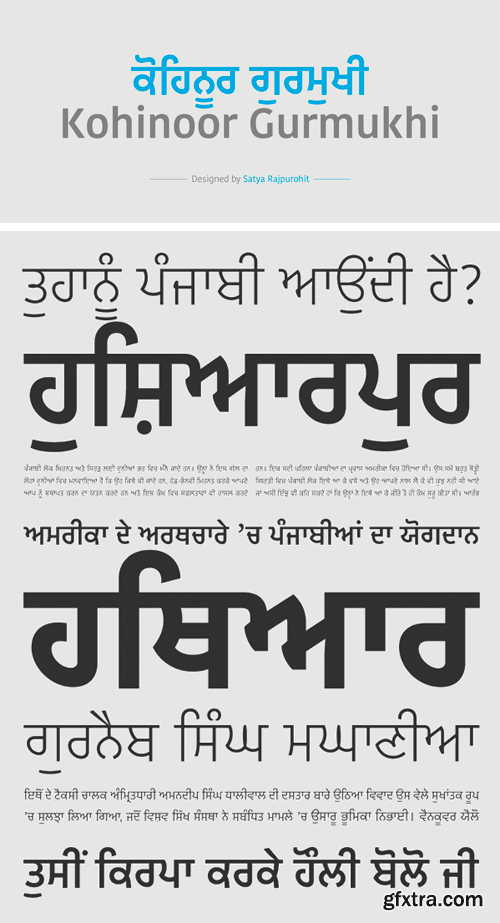
Kohinoor Gurmukhi Font Family
A sophisticated Gurmukhi sans-serif typeface suitable for both body and display text. Part of the super family Kohinoor Multiscript. A highly functional typeface family that is easy to work with and inviting to read.